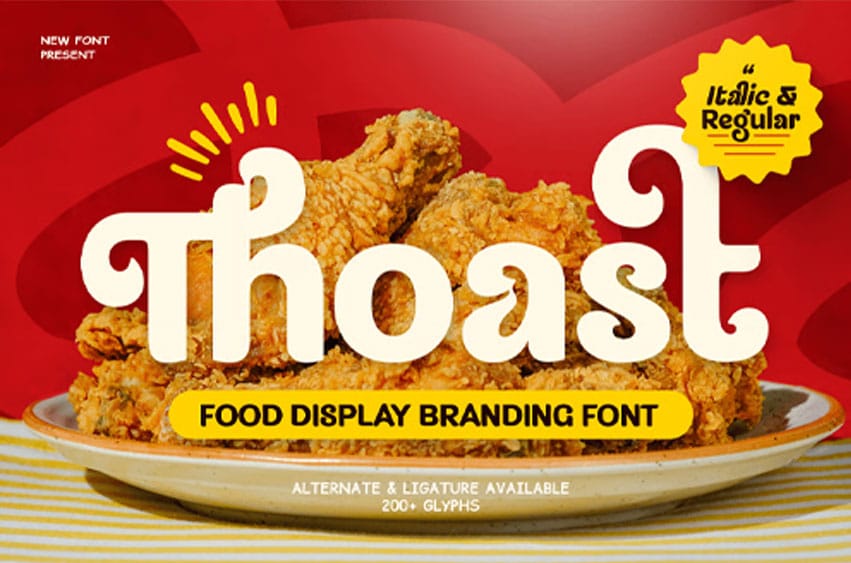
Thoast Font Food Bold Font Thoast is a bold food display font designed to bring warmth, flavor, and a strong visual appetite to your designs. Featuring thick letterforms, smooth curves, and a playful yet confident style, Thoast is perfect for restaurant branding, food packaging, menus, cafes, bakeries, and culinary-themed design projects.
Inspired by delicious comfort food and modern food branding trends, Thoast delivers a friendly and eye-catching appearance. Its bold structure ensures excellent readability while maintaining a fun and appetizing character, making it ideal for food businesses, street food brands, snack packaging, and promotional materials.
Thoast – Food Bold Font Features:
- Bold and playful style with food-inspired character
- Ready with regular and italic versions of style
- Thick letterforms with smooth and friendly curves
- Ideal for restaurants, cafes, menus, and packaging
- Highly readable with strong visual impact
- Perfect for culinary branding, snacks, and food promotions
Serve your design with flavor using Thoast – the bold food font made for delicious and eye-catching visuals.